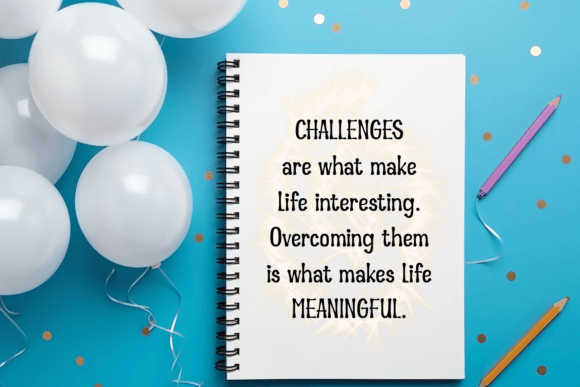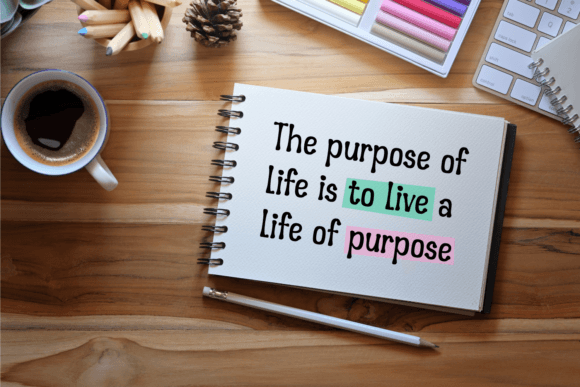
Introduction to Never Be the Same Font
Never Be The Same is a beautiful handwritten typeface.
Whether used for weddings, branding, editorial design, or social media graphics, the Never Be The Same Font adds an unmistakable touch of elegance and charm that is sure to captivate audiences and evoke admiration and appreciation for its timeless beauty .
Key Features of Never Be the Same Font
Why Choose Never Be the Same Font?
Never Be the Same Font offers exceptional quality and versatility, making it a valuable addition to your design toolkit. Whether you’re creating for personal projects or commercial use, Never Be the Same Font delivers professional results.